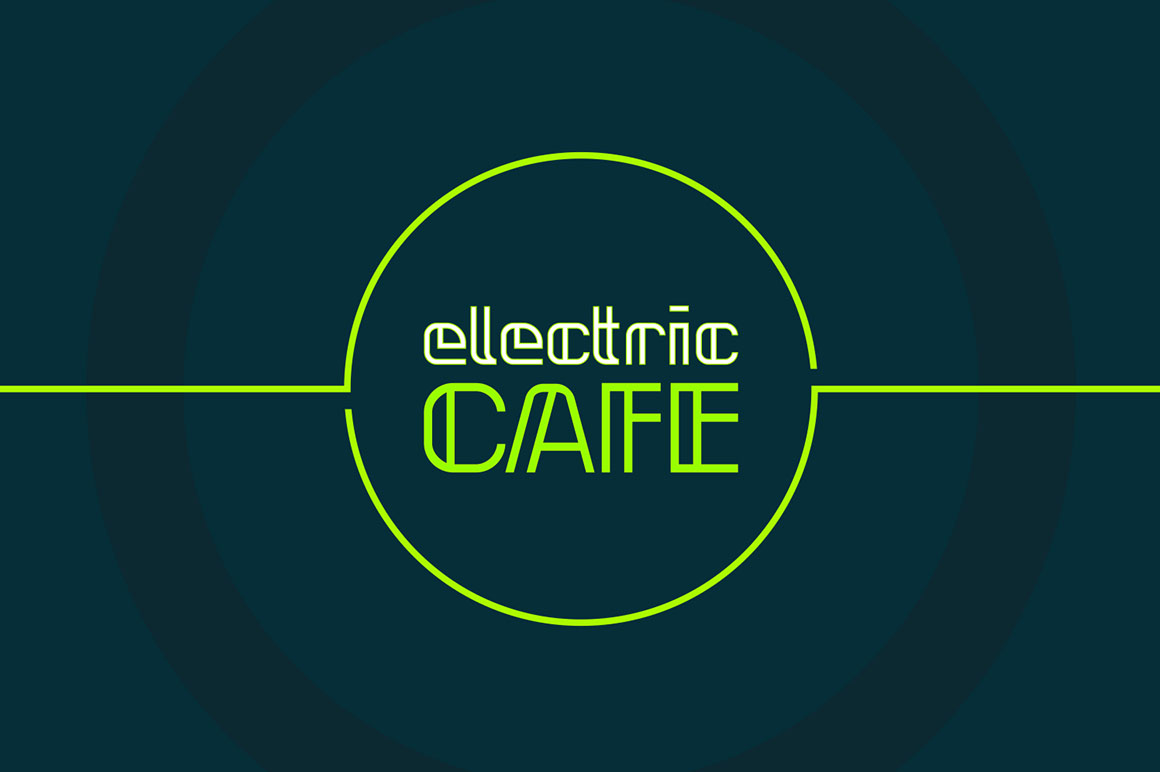
Neonclipper – 3 Free Fonts
This clean & modern style sans serif font is from NimaVisual. You’ll get 3 fonts: light, normal & bold. Download and enjoy 😉